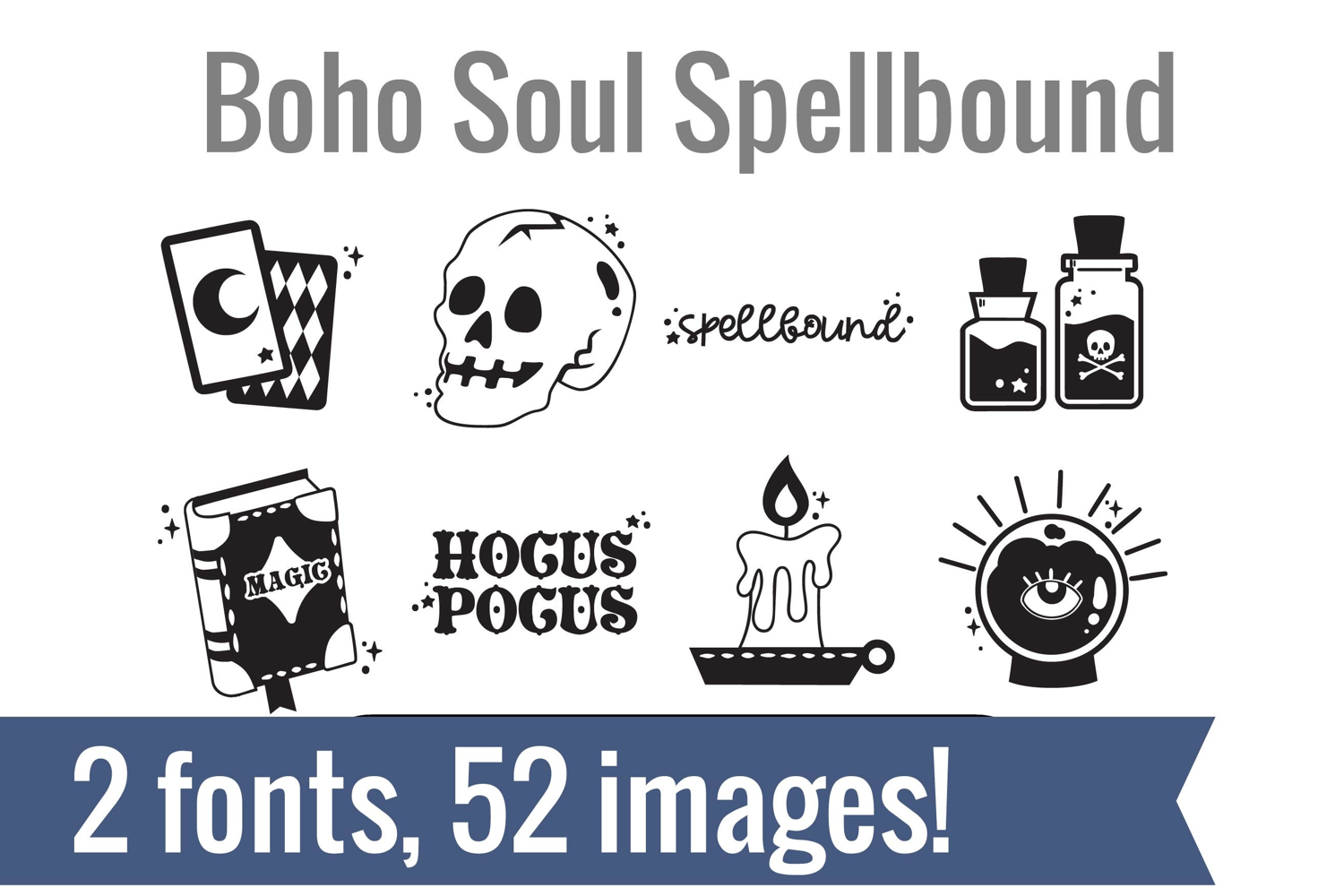
Boho Soul Dingbats
Unlock endless creativity with two perfectly coordinated fonts! There are two dingbat fonts in this bundle. One is a boho style filled with calming imagery and a second with a Halloween emphasis to the glyphs.
Tired of spending hours searching for the perfect icons and graphics? Our dingbat fonts put dozens of cohesive, scalable designs at your fingertips. Simply install the font and type a letter to produce a pre-made image. From charming seasonal icons for holiday cards to intricate frames for your invitations, these fonts let you create stunning designs for vinyl cutting, paper crafts, planners, and more.